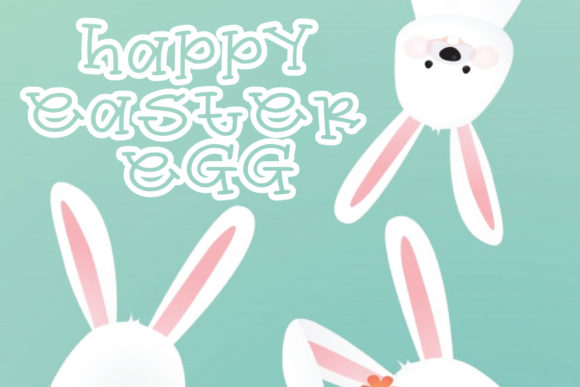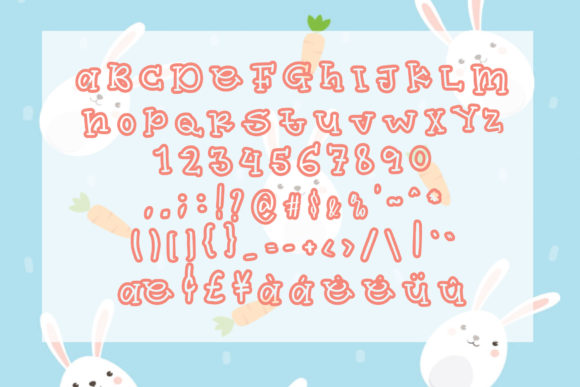
Introduction to Happy Rabbit Easter Egg Font
Remember that moment when you stumbled upon the perfect font for your design project? The one that brings your ideas to life and makes them shine? That’s exactly what we’re excited to introduce you to today – the Happy Rabbit Easter Egg Font. This quirky and friendly display font is a game-changer for any creative project, especially those that cater to kids.
As a designer, you understand the importance of having the right design resources at your fingertips. A high-quality font like the Happy Rabbit Easter Egg Font can make all the difference in bringing your vision to life. With its transparent background and playful feel, this font is perfect for school projects, children’s activities, or any other creative endeavor that requires a touch of whimsy.
Key Features of Happy Rabbit Easter Egg Font
- Unique and playful design, perfect for creative projects like Easter cards, invitations, and decorations.
- Transparent background option, allowing for seamless integration with any design resource or background image.
- Perfect for designers, crafters, and artists looking for a fun and festive design resource for their next creative project.
- Includes a range of characters, including uppercase and lowercase letters, numbers, and punctuation marks, making it a versatile design resource.
Honest Review: Happy Rabbit Easter Egg Font
I recently stumbled upon the Happy Rabbit Easter Egg Font, and I’m excited to share my thoughts on this design resource. As a designer, I’m always on the lookout for unique and creative fonts to elevate my projects. In this case, the Happy Rabbit Easter Egg Font delivers.
- ✨ Unique design: The font features a charming Easter egg theme, complete with colorful illustrations and whimsical details. It’s perfect for adding a playful touch to your creative project.
- ✨ High quality: The font is crisp and clear, making it suitable for a variety of applications, from print to digital design.
While the Happy Rabbit Easter Egg Font is a great addition to any designer’s toolkit, there are a few limitations to consider. ⚠️ One drawback is the lack of transparency options, which may limit its use in certain creative projects that require a transparent background.
Introduction to Happy Rabbit Easter Egg Font
The Happy Rabbit Easter Egg Font is a unique and colorful design resource that can add a playful touch to any creative project. With its transparent background, this font is perfect for designers who want to create eye-catching graphics without the hassle of complicated design work.
You can also use the Happy Rabbit Easter Egg Font in PowerPoint or Word to create presentations and documents that stand out from the crowd. Simply download the font and add it to your project for a professional-looking design.
The Happy Rabbit Easter Egg Font is perfect for designers who want to create fun and playful designs for Easter, spring, or other seasonal events. It’s also great for creating graphics for kids’ parties, nursery decorations, and other creative projects.
To get the most out of the Happy Rabbit Easter Egg Font, be sure to experiment with different font sizes, colors, and combinations. You can also use the font in conjunction with other design elements, such as graphics and images, to create a unique and eye-catching design.
Is the Happy Rabbit Easter Egg Font a high-quality font?
Yes, the Happy Rabbit Easter Egg Font is a high-quality font that has been carefully crafted to provide a unique and creative design experience. The font features a clear and legible design, making it perfect for use in a variety of creative projects, from marketing materials to digital designs.